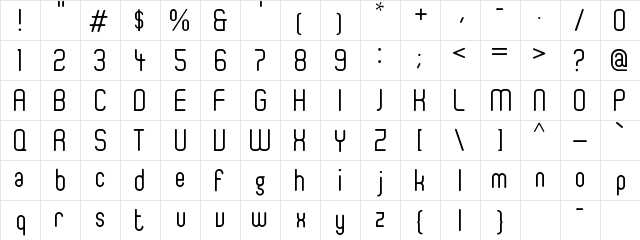
Ger4ronL Cond Regular
Ger4ronL Cond is a composed and adaptable typeface that performs quietly and consistently across a wide range of design contexts. The condensed width makes it efficient for tight spaces without sacrificing legibility.